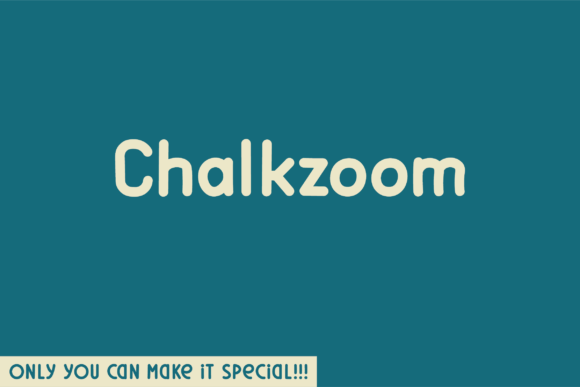
Introducing Chalkzoom Font - the Sans Serif Font Infused with Charm and Legibility!
Embark on a typographic journey with Chalkzoom Font, a carefully crafted sans serif creation brimming with personality and practicality. Inspired by the timeless beauty of classic typography, Chalkzoom Font captures the essence of effortless readability and artful aesthetics, making it the ideal choice for a wide range of creative projects.
Step into a world where your words take center stage, enhanced by the elegant curves and clean lines of Chalkzoom Font. Its natural charm adds a touch of sophistication to quotes, notes, tees, and any product design seeking a timeless touch. As a sans serif font, Chalkzoom excels in clarity and legibility, ensuring your message shines through with unwavering impact.
Whether you're a creative professional weaving tales through design or an individual seeking a font that speaks to your unique style, Chalkzoom Font is your perfect companion. Its versatility extends beyond the realm of digital creations, seamlessly transitioning into physical products that exude an aura of timeless elegance.
With Chalkzoom Font, your creative vision takes flight, unbound by limitations. Unleash your imagination and embrace the endless possibilities it presents. Discover the allure of a font that captivates audiences and leaves a lasting impression, effortlessly elevating your projects to new heights of visual brilliance.